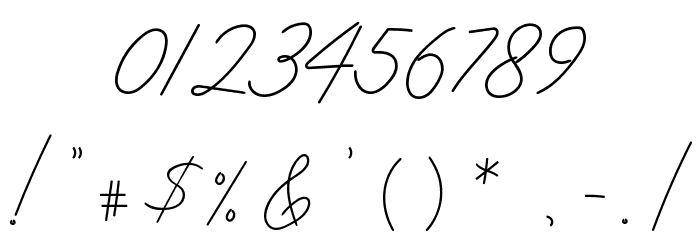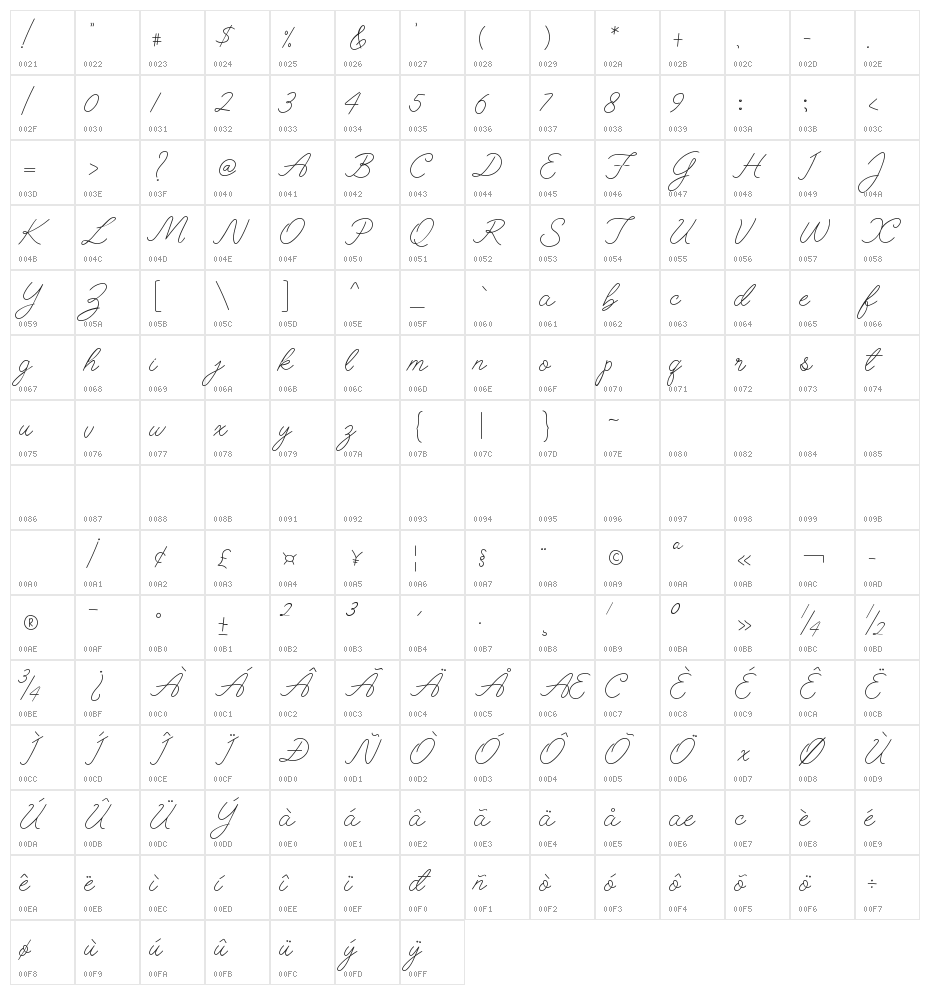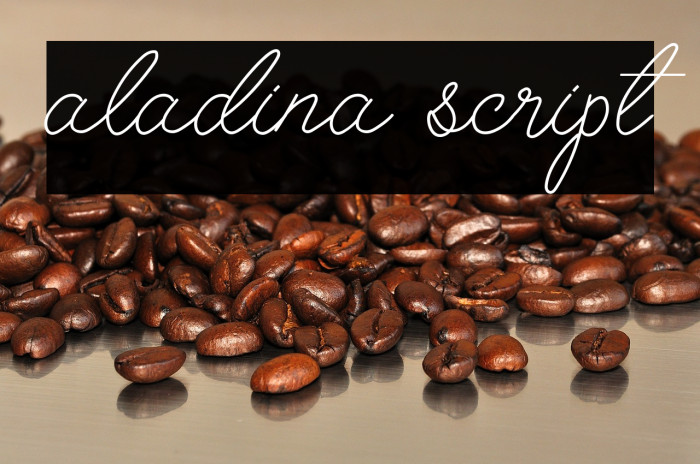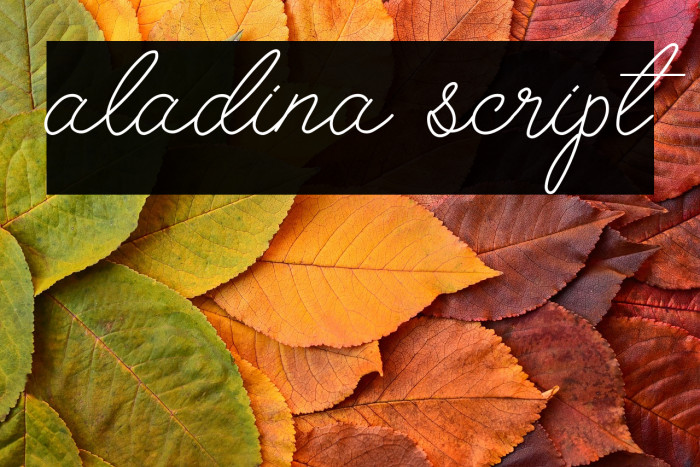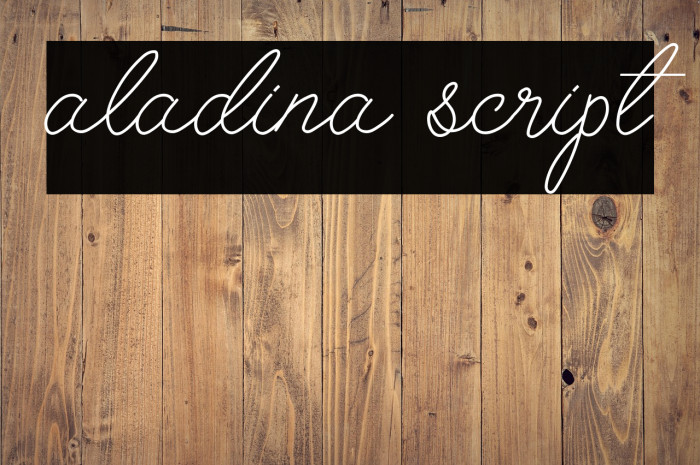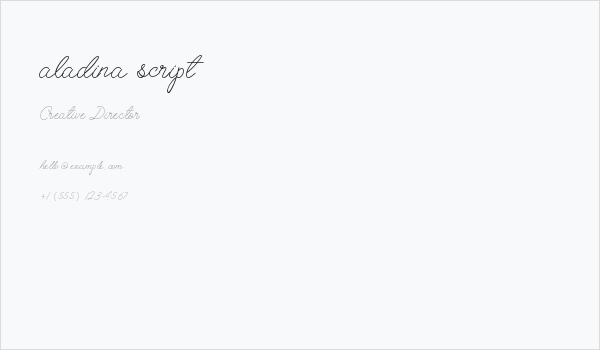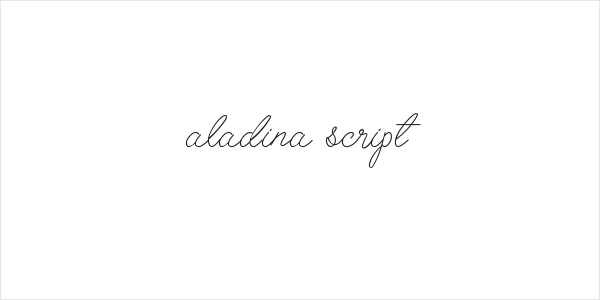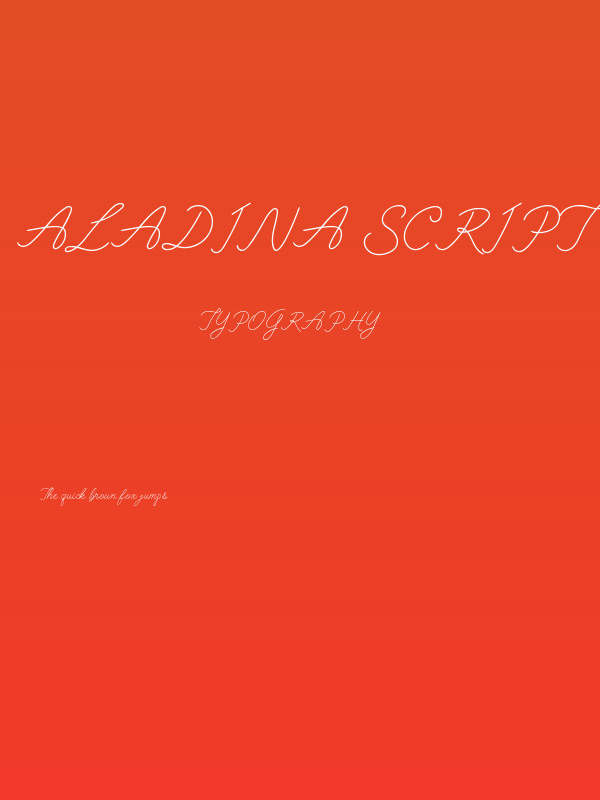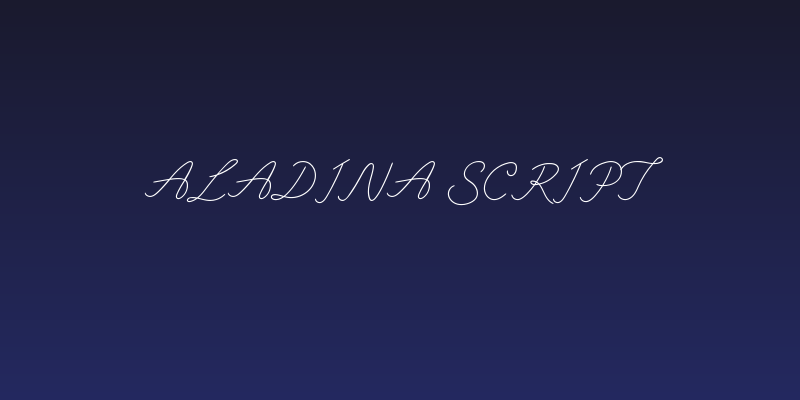
aladina script Font
aladina script Description
This script font exudes elegance and fluidity, characterized by its smooth, flowing lines and cursive style. The letters are interconnected, creating a seamless and harmonious appearance. The uppercase letters are slightly more ornate, with gentle curves and loops that add a touch of sophistication. The lowercase letters maintain a consistent rhythm, enhancing readability while preserving the font's artistic flair. The numerals and special characters are crafted with the same attention to detail, ensuring a cohesive look across all text elements. This font is perfect for projects that require a personal, handwritten touch, such as invitations, greeting cards, or branding materials.
| Proposed Projects | Ideal for wedding invitations, personal branding, greeting cards, and elegant stationery. |